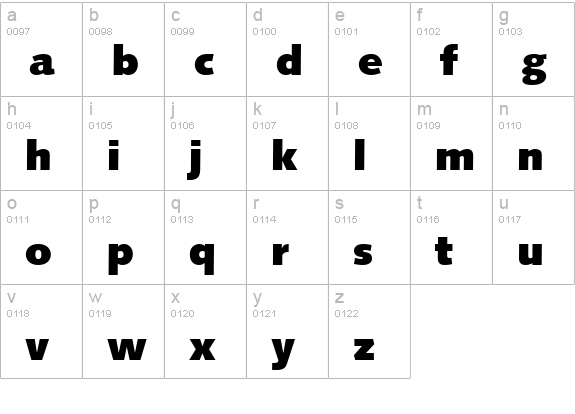
Facile Black SSi Black Font Details
Facile Black SSi Black is a maximum-weight, dramatic variant in the Facile typeface family \xE2\x80\x94 well suited to maximum-impact headlines, posters, and packaging.
Introducing Facile Black SSi Black font, a stylish and versatile typeface that exudes elegance and sophistication. This sleek and modern font is perfect for adding a touch of class to any design project. With its bold and impactful lettering, Facile Black SSi Black font commands attention and makes a lasting impression. Designed with meticulous attention to detail, this font features clean lines and crisp edges, ensuring optimal legibility and readability. Its unique and distinct design elements make it ideal for a wide range of applications, from logo designs and branding materials to website headers and promotional materials. One of the standout features of Facile Black SSi Black font is its versatility. It effortlessly adapts to different design styles, making it suitable for both contemporary and traditional designs. Its bold and commanding presence ensures that your message will be noticed and remembered. And the best part? Facile Black SSi Black font is available for free download at FontsMarket.com. That's right – you can enhance your design projects with this stunning font without spending a dime. Whether you're a professional designer looking to add a unique touch to your work or an enthusiast eager to explore the world of typography, this font is a must-have in your collection. So why wait? Download Facile Black SSi Black font today and let your creativity soar. Elevate your designs with this sleek and sophisticated typeface, and make a lasting impression on your audience. With its versatility, elegance, and the added bonus of being free, Facile Black SSi Black font is a true gem in the world of typography. Don't miss out on this opportunity to enhance your designs and set yourself apart from the competition.